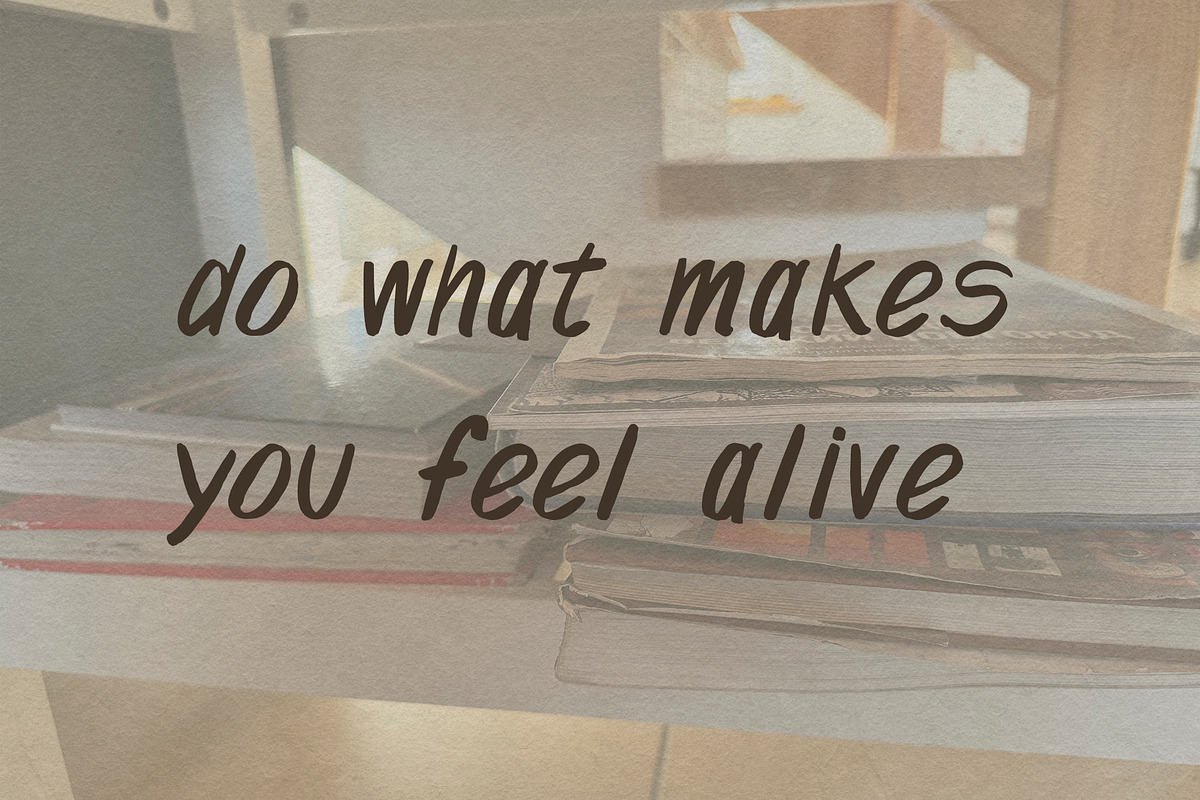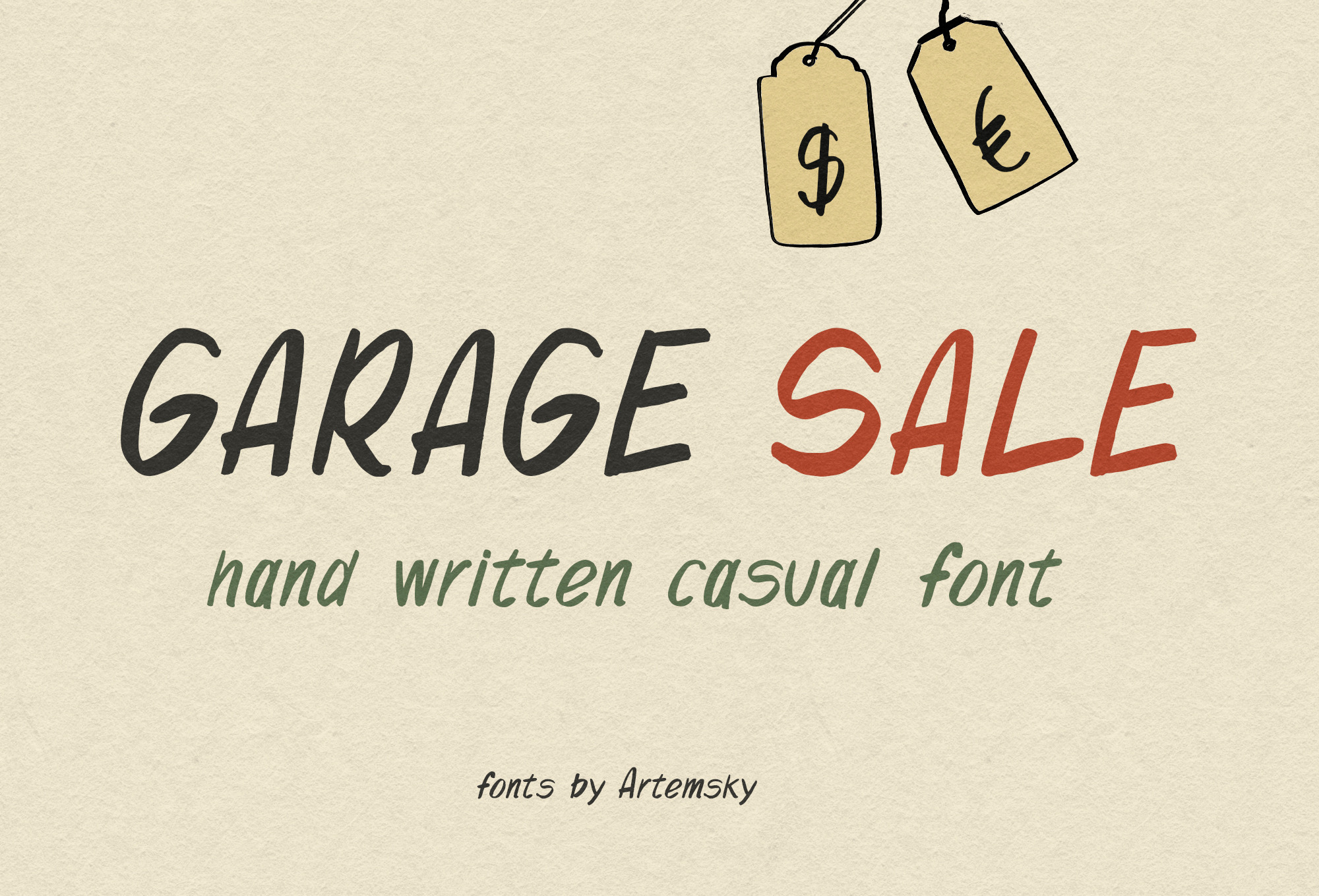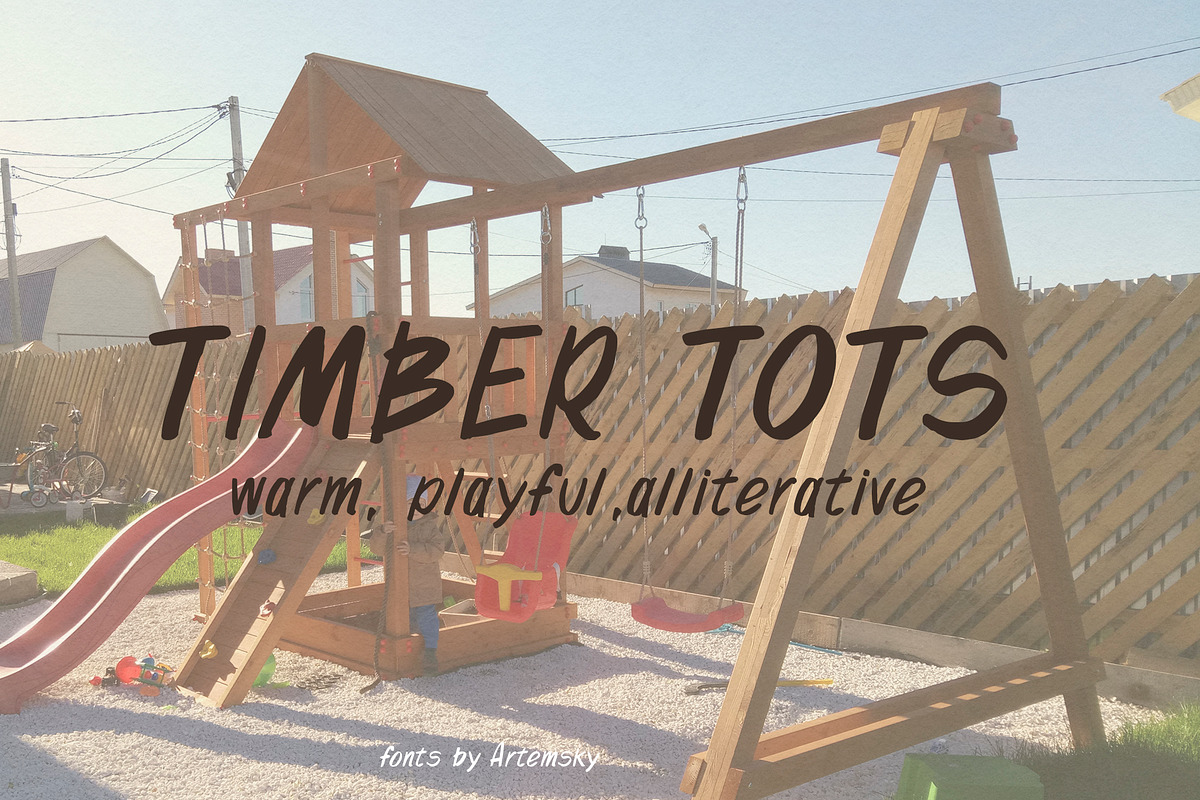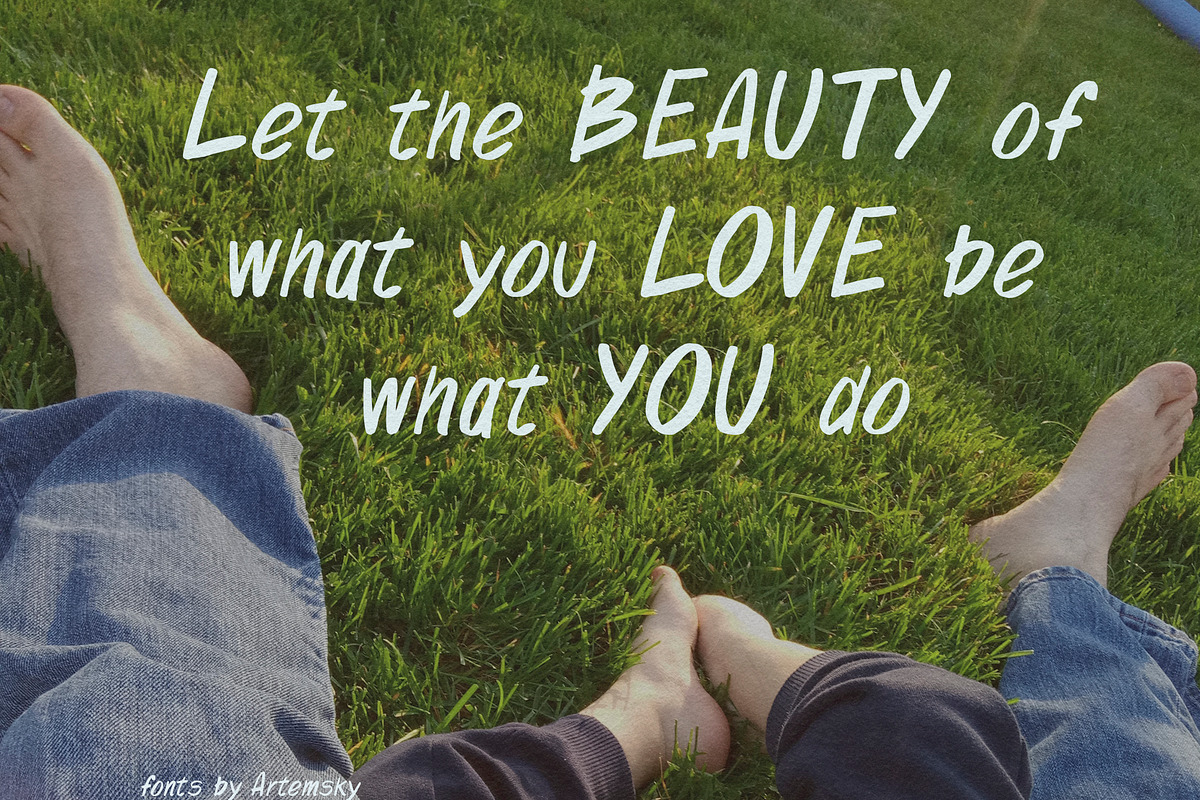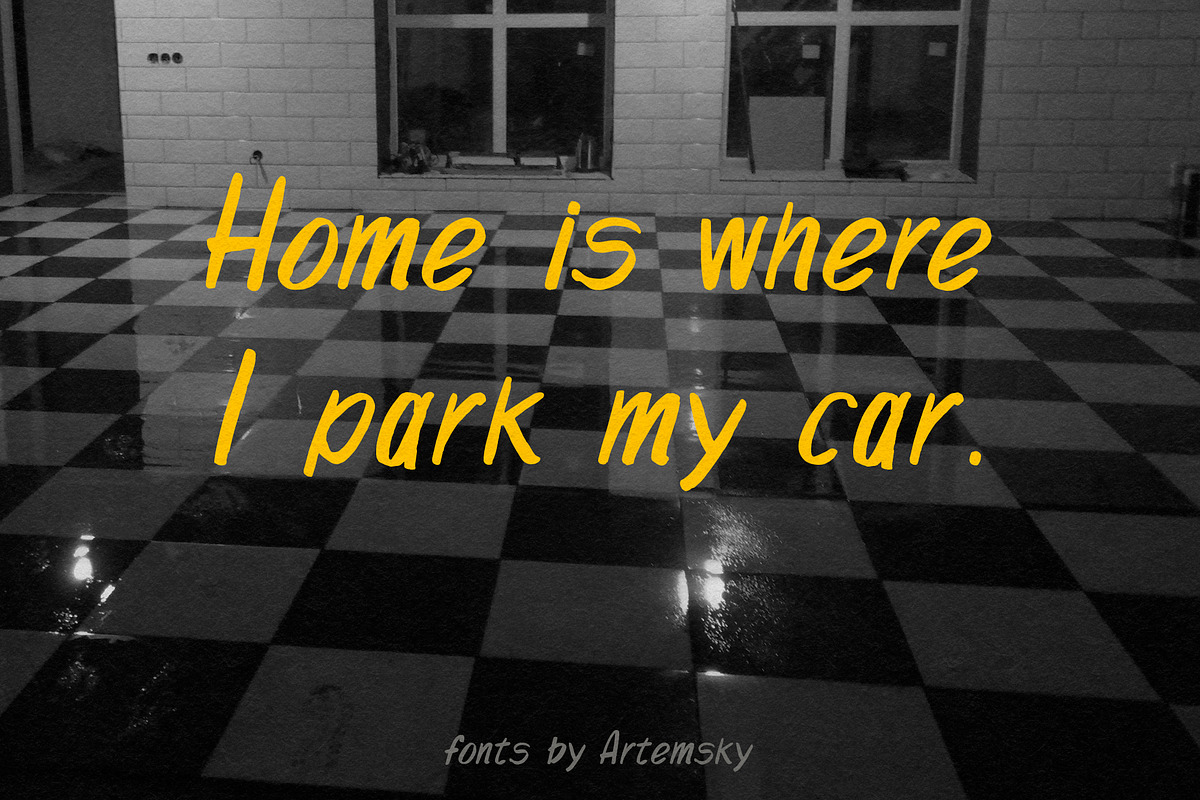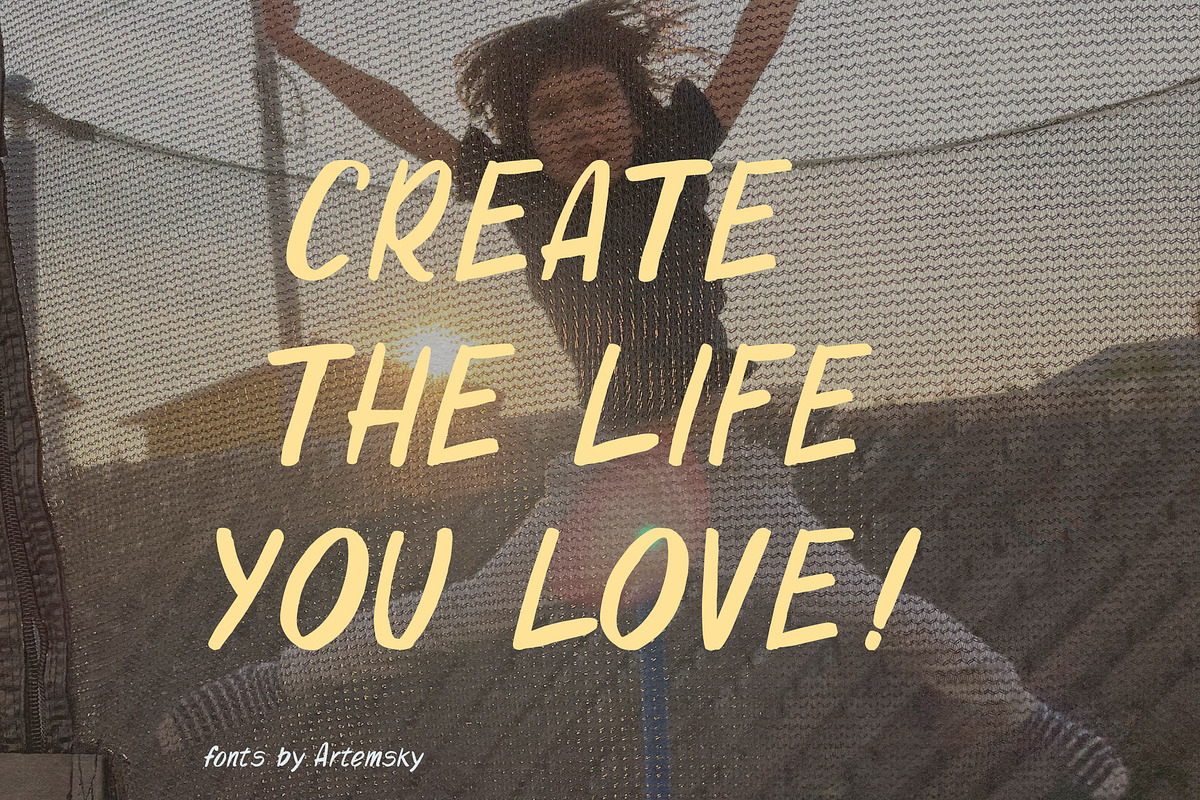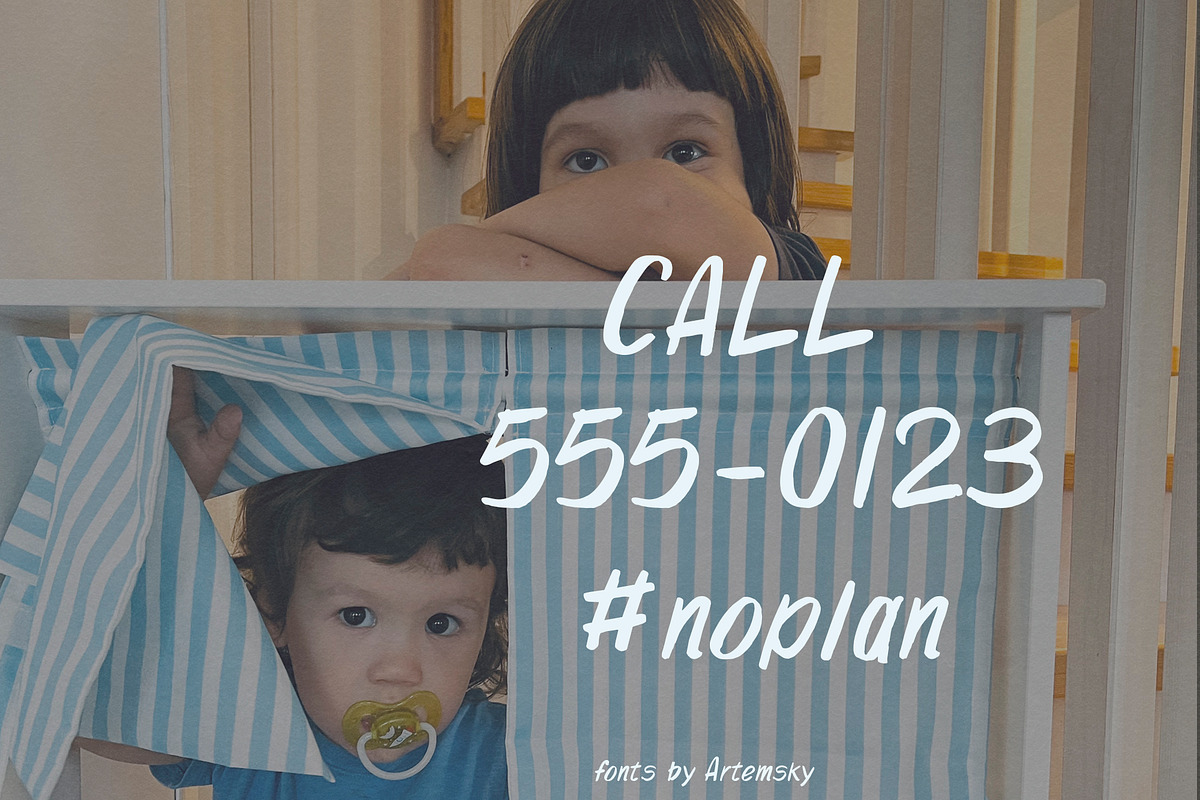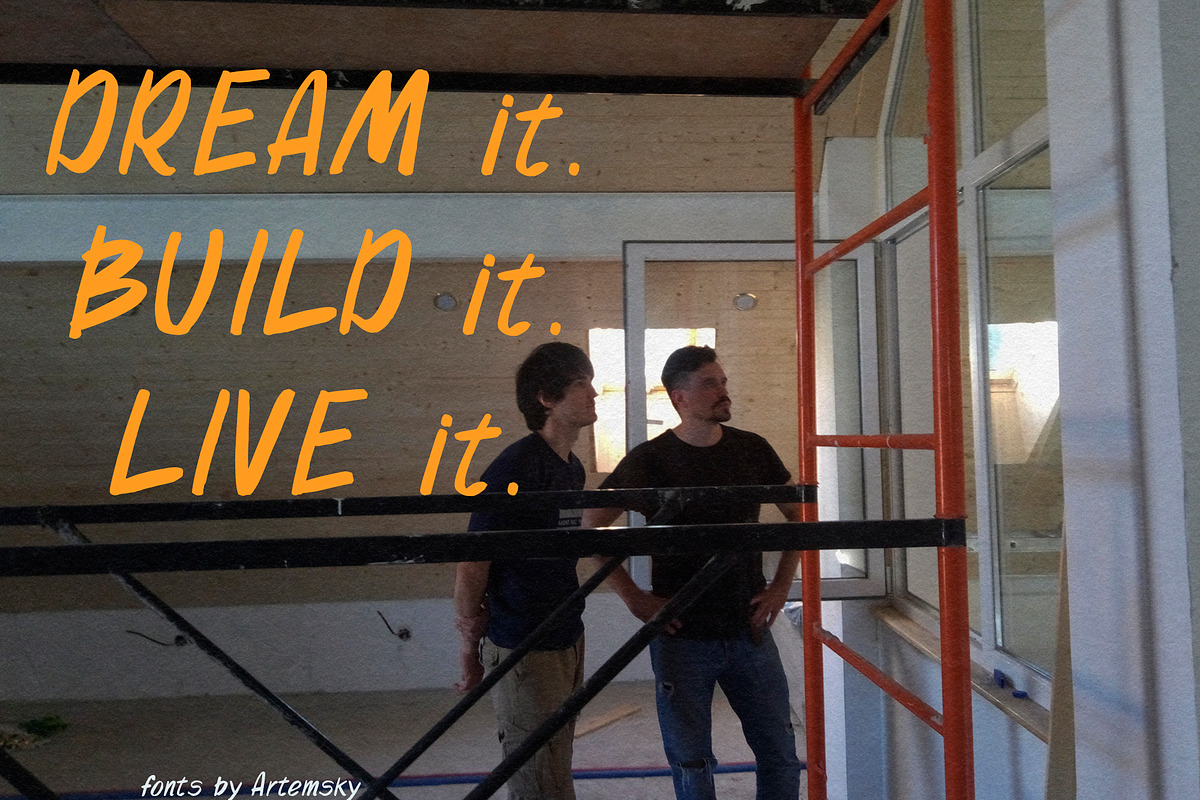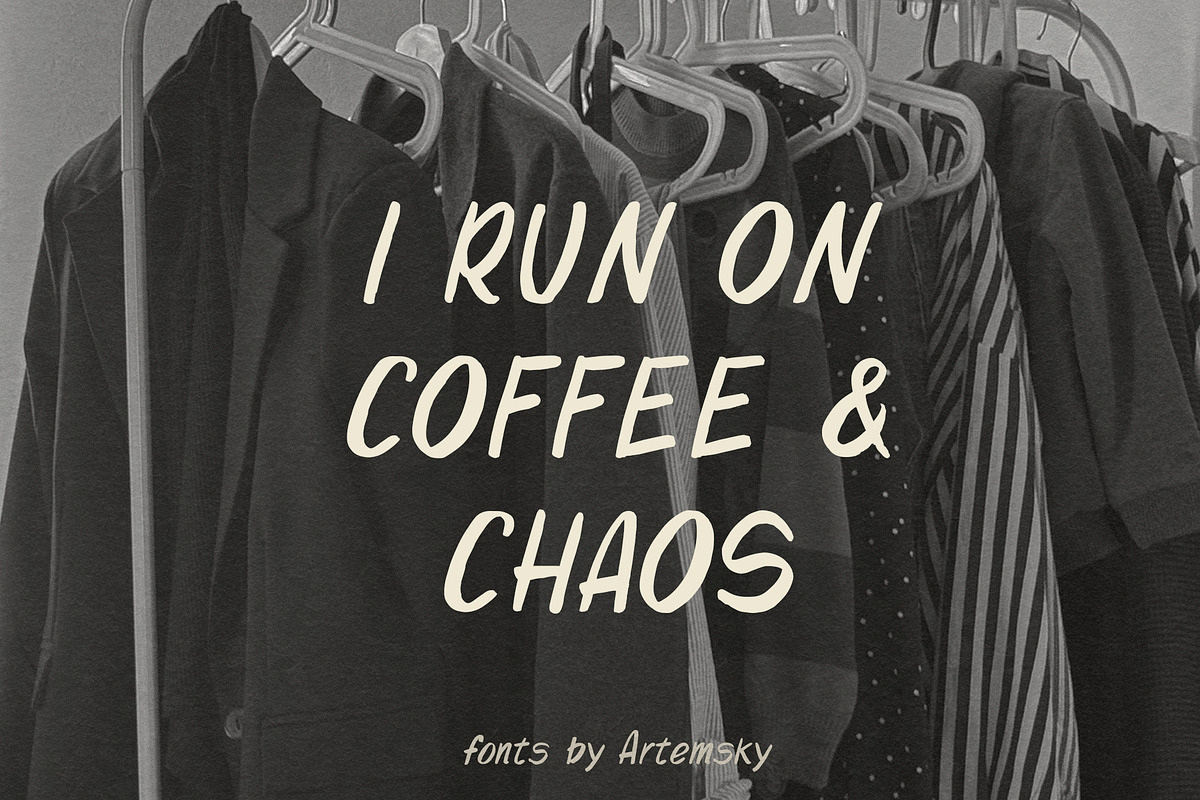
Organic Playful San Serif Font
Organic Playful Handwritten San Serif Font - Casual Ink Style, Upper & Lowercase.
A truly hand-drawn, modern organic font with personality - perfect for brands that want to feel human, approachable, and fun. This isn't a sterile, perfect typeface. Every letter carries the warmth of a real marker on paper: slightly irregular, naturally playful, and effortlessly casual. Whether you're designing for a kids' playground, a farmer's market stand, a creative workshop, or a cozy coffee shop, this font adds that "made by hand" charm.
• Uppercase & lowercase characters (A-Z, a-z)
• Numbers & basic punctuation
• Organic, stroke with natural imperfections
• Easy to layer, scale, or use as a bold headline or soft body text
• Logos & branding (especially organic, eco, or family-focused)
• Wall art prints & quote posters
• Product packaging (jars, soaps, baked goods)
• Social media graphics & quote templates
• Stickers, labels, and chalkboard-style menus
• Kids' party invitations or playful stationery Why you'll love it:
• Authentic handmade texture — no two letters feel exactly the same
• Highly readable while keeping a loose, friendly mood
• Works beautifully in both all-caps headlines and sentence-case quotes
• Light, medium, and bold styles available if applicable - adjust if single weight)
Why you'll love it:
• Authentic handmade texture - no two letters feel exactly the same
• Highly readable while keeping a loose, friendly mood
• Works beautifully in both all-caps headlines and sentence-case quotes